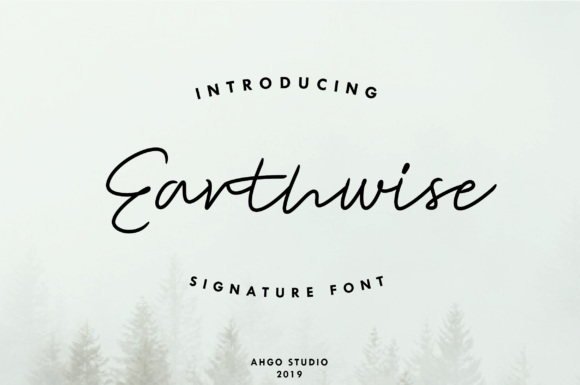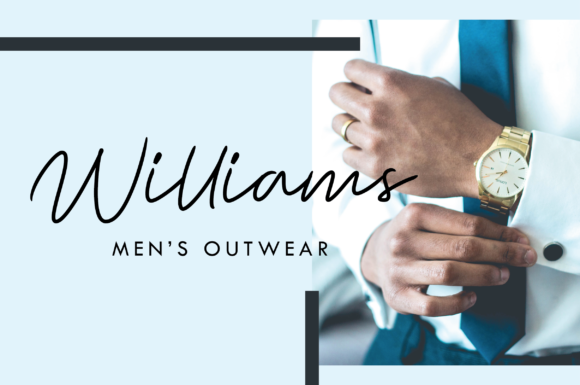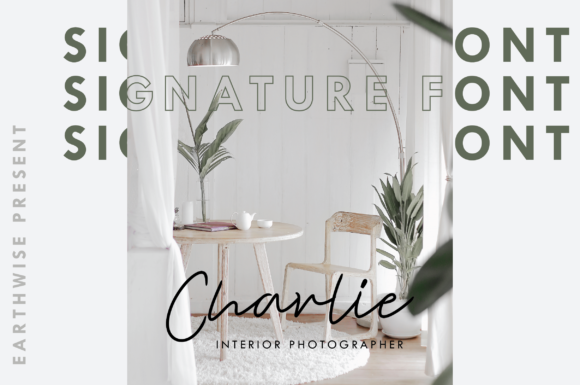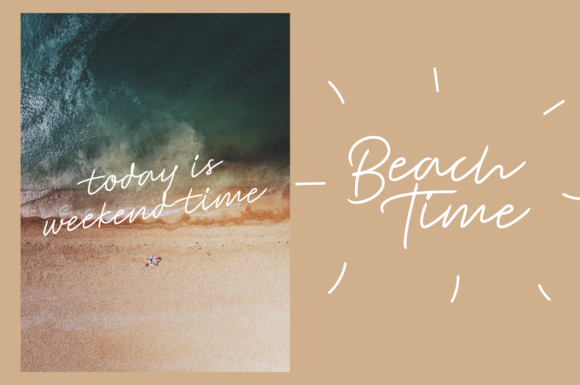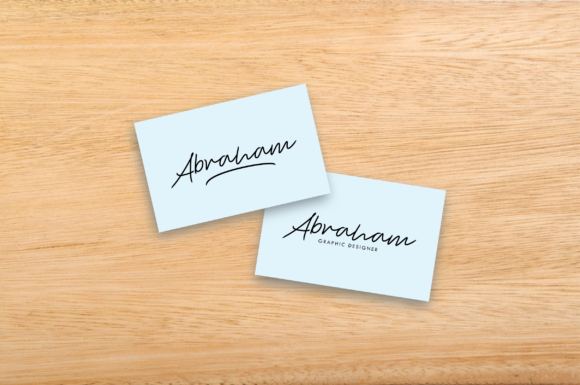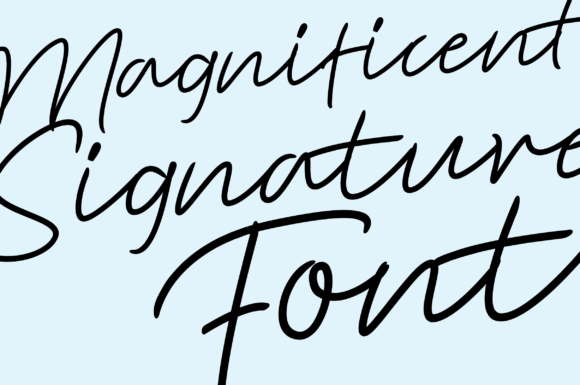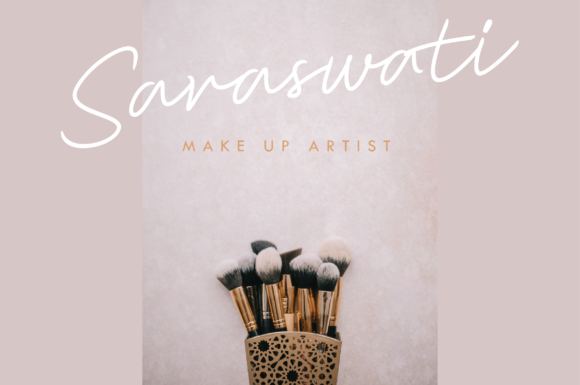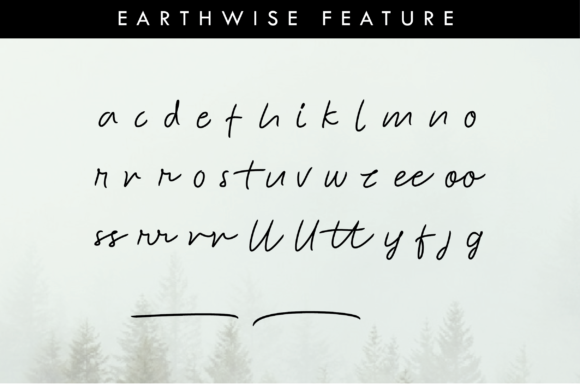
HomeScript FontsEarthwise Font Script Fonts Earthwise Font FacebookXPinterestWhatsApp Earthwise Font Poster 2 Earthwise Font Poster 3 Earthwise Font Poster 4 Earthwise Font Poster 5 Earthwise Font Poster 6 Earthwise Font Poster 7 Earthwise Font Poster 8 About Earthwise Font Earthwise is a sweet and authentic script font. It’s extremely versatile, and works well in any font occasion! DOWNLOAD ON CREATIVE FABRICAThis font is sold and delivered by Creative Fabrica. Font Canyon may earn a commission if you buy through this link. People also explored Badlaza Adalana Font Sunshine Font Sunday White Font Hakuno Font Tompouce Vesterly Font Jockwatt Font Avengeline Font Businessland Font 325 0 TagsEarthwise Font Previous articleGolden Night FontNext articleBrownice Font LEAVE A REPLY Cancel reply Comment: Please enter your comment! Name:* Please enter your name here Email:* You have entered an incorrect email address! Please enter your email address here Website: Save my name, email, and website in this browser for the next time I comment. Personal Use Free First Be Lucky Personal Use Free Read more about this font Clumed Personal Use Free Read more about this font Ancient Script Personal Use Free Read more about this font Pridaem Cooper Personal Use Free Read more about this font BLOG To increase your work productivity, choose the most readable fonts. In today's fast-paced work environment, where digital communication and information consumption are integral to our daily routines, the choice of fonts can significantly impact... 5 Fonts That Will Dominate Design Trends in 2026 Free vs Paid Fonts: Why Investing in Premium Fonts Is Worth It Exploring Font Trends